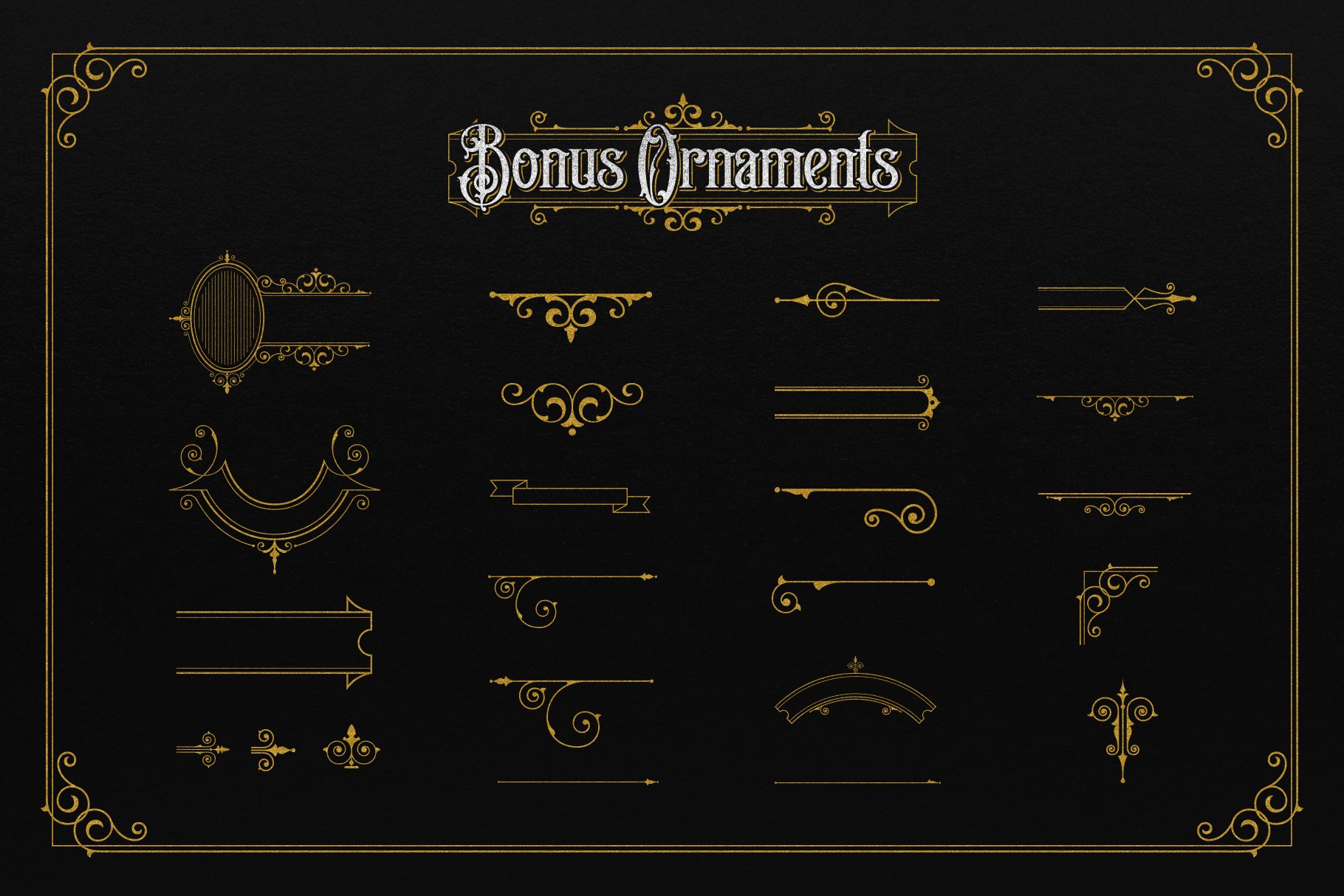
Sign Shop Font . free signage fonts to make your message stand out! Enhance your content with creative and unique fonts that let your. the sign shop font is debut font created by peter bielous and neuron. It has vintage looking and is inspired by victorian era. the sign shop font is the debut font created by peter bielous and neuron. Coupled with the main font is the. The whole package includes an. It has vintage looking and is inspired by victorian era. It has a vintage look and is inspired by the victorian era. It contains extra bonus font. It has vintage looking and is inspired by victorian era. the sign shop font is debut font created by peter bielous and neuron. very happy to introduce you my new font called the sign shop which was created together with neuron type. the sign shop font is debut font created by peter bielous and neuron. It contains extra bonus font.
It contains extra bonus font. It has a vintage look and is inspired by the victorian era. the sign shop font is debut font created by peter bielous and neuron. The whole package includes an. Coupled with the main font is the. It has vintage looking and is inspired by victorian era. very happy to introduce you my new font called the sign shop which was created together with neuron type. the sign shop font is the debut font created by peter bielous and neuron. It has vintage looking and is inspired by victorian era. It contains extra bonus font.
Sign Shop Font very happy to introduce you my new font called the sign shop which was created together with neuron type. very happy to introduce you my new font called the sign shop which was created together with neuron type. the sign shop font is debut font created by peter bielous and neuron. The whole package includes an. It has vintage looking and is inspired by victorian era. Coupled with the main font is the. the sign shop font is debut font created by peter bielous and neuron. It contains extra bonus font. free signage fonts to make your message stand out! It contains extra bonus font. It has vintage looking and is inspired by victorian era. the sign shop font is debut font created by peter bielous and neuron. its ornate style is perfect for achieving a retro aesthetic in your design projects. It has vintage looking and is inspired by victorian era. Enhance your content with creative and unique fonts that let your. the sign shop font is the debut font created by peter bielous and neuron.
The Sign Shop Font Vintage fonts, Victorian fonts, Lettering Sign Shop Font very happy to introduce you my new font called the sign shop which was created together with neuron type. It has a vintage look and is inspired by the victorian era. the sign shop font is the debut font created by peter bielous and neuron. It has vintage looking and is inspired by victorian era. the sign. Sign Shop Font.
THE SIGN SHOP FONT on Behance Sign Shop Font It has a vintage look and is inspired by the victorian era. It contains extra bonus font. the sign shop font is debut font created by peter bielous and neuron. the sign shop font is the debut font created by peter bielous and neuron. It contains extra bonus font. the sign shop font is debut font created. Sign Shop Font.
THE SIGN SHOP FONT on Behance Sign Shop Font Enhance your content with creative and unique fonts that let your. It has vintage looking and is inspired by victorian era. free signage fonts to make your message stand out! It contains extra bonus font. the sign shop font is debut font created by peter bielous and neuron. It has a vintage look and is inspired by the. Sign Shop Font.
neon font sign, vector illustration 312794 Vector Art at Vecteezy Sign Shop Font It has vintage looking and is inspired by victorian era. the sign shop font is the debut font created by peter bielous and neuron. Coupled with the main font is the. It has vintage looking and is inspired by victorian era. its ornate style is perfect for achieving a retro aesthetic in your design projects. It contains extra. Sign Shop Font.
The Sign Shop Font By Nurrontype TheHungryJPEG Sign Shop Font the sign shop font is debut font created by peter bielous and neuron. the sign shop font is the debut font created by peter bielous and neuron. Coupled with the main font is the. It has a vintage look and is inspired by the victorian era. Enhance your content with creative and unique fonts that let your. It. Sign Shop Font.
The Sign Shop Font By Nurrontype TheHungryJPEG Sign Shop Font its ornate style is perfect for achieving a retro aesthetic in your design projects. very happy to introduce you my new font called the sign shop which was created together with neuron type. free signage fonts to make your message stand out! Coupled with the main font is the. the sign shop font is debut font. Sign Shop Font.